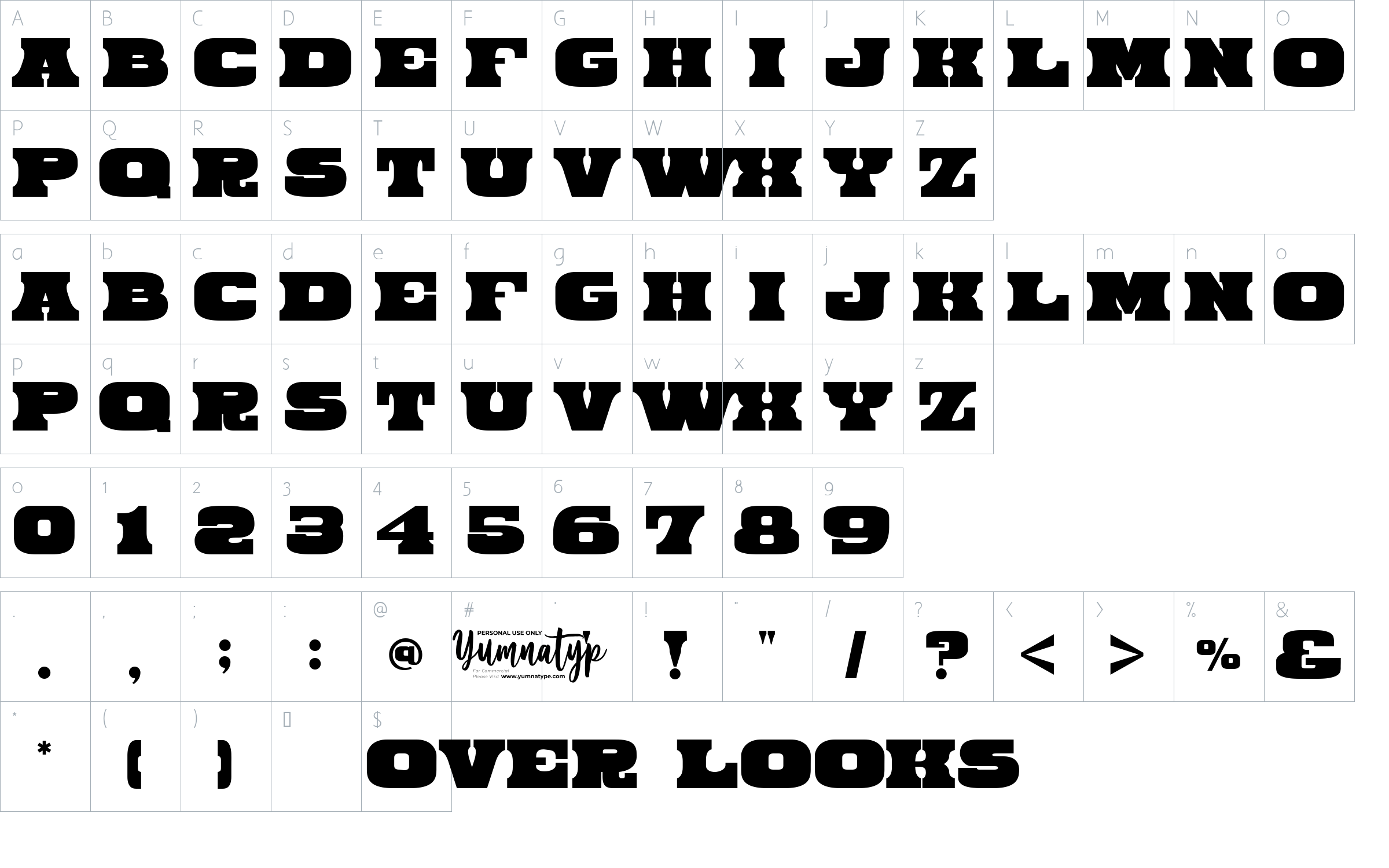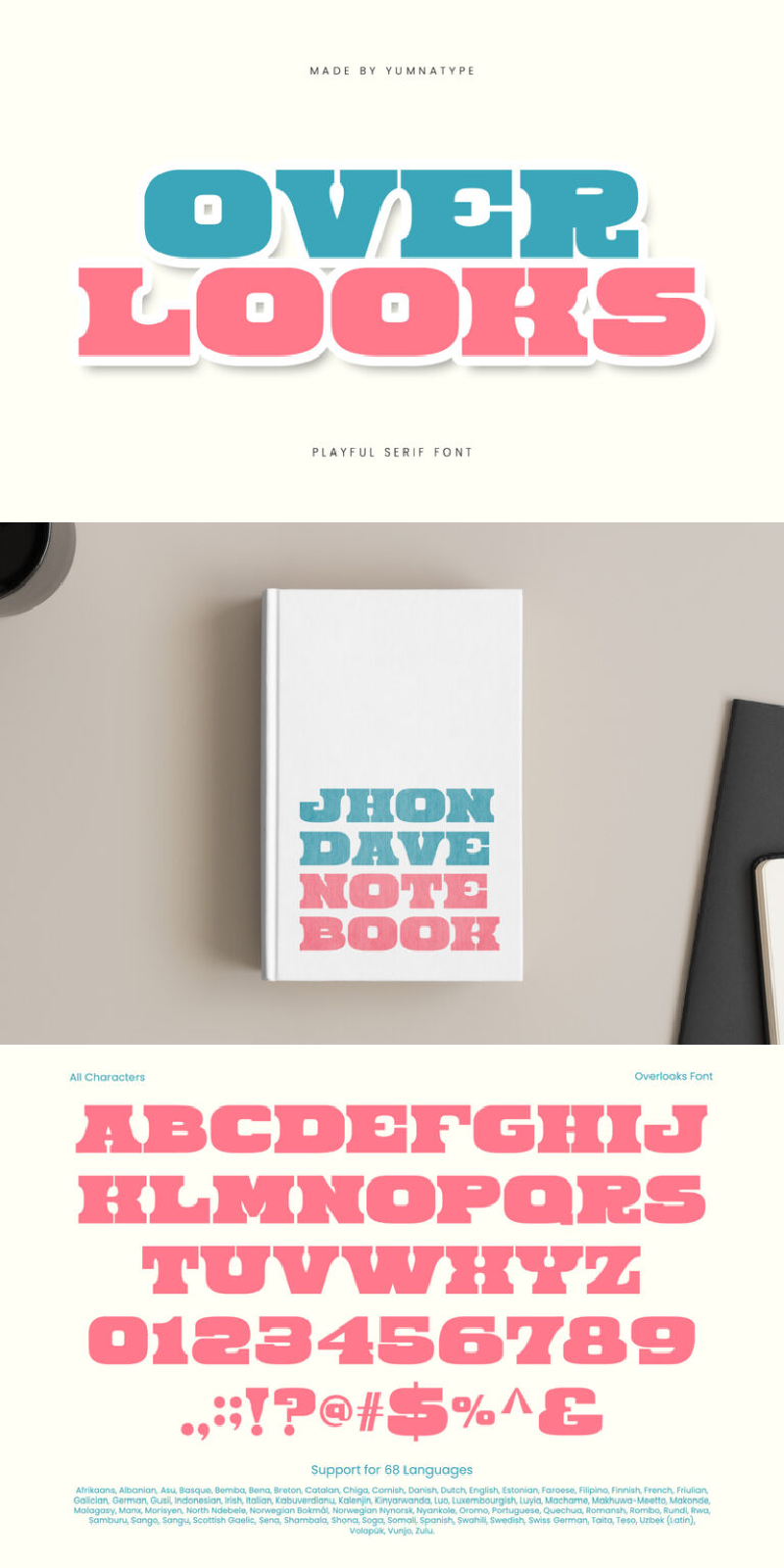
Overlooks Font
About Overlooks
Overlooks is a bold and playful serif font that commands attention with its all in uppercase design. Characterized by its very thick weight and low contrast, Overlooks brings a sense of fun and creativity to any project. Its slightly condensed form adds a unique flair, perfect to make a strong and lively statement. In addition, enjoy the features here.
Overlooks fits in headlines, logos, posters, flyers, branding materials, print media, editorial layouts, and many more designs. Find out more ways to use this font by taking a look at the font preview.